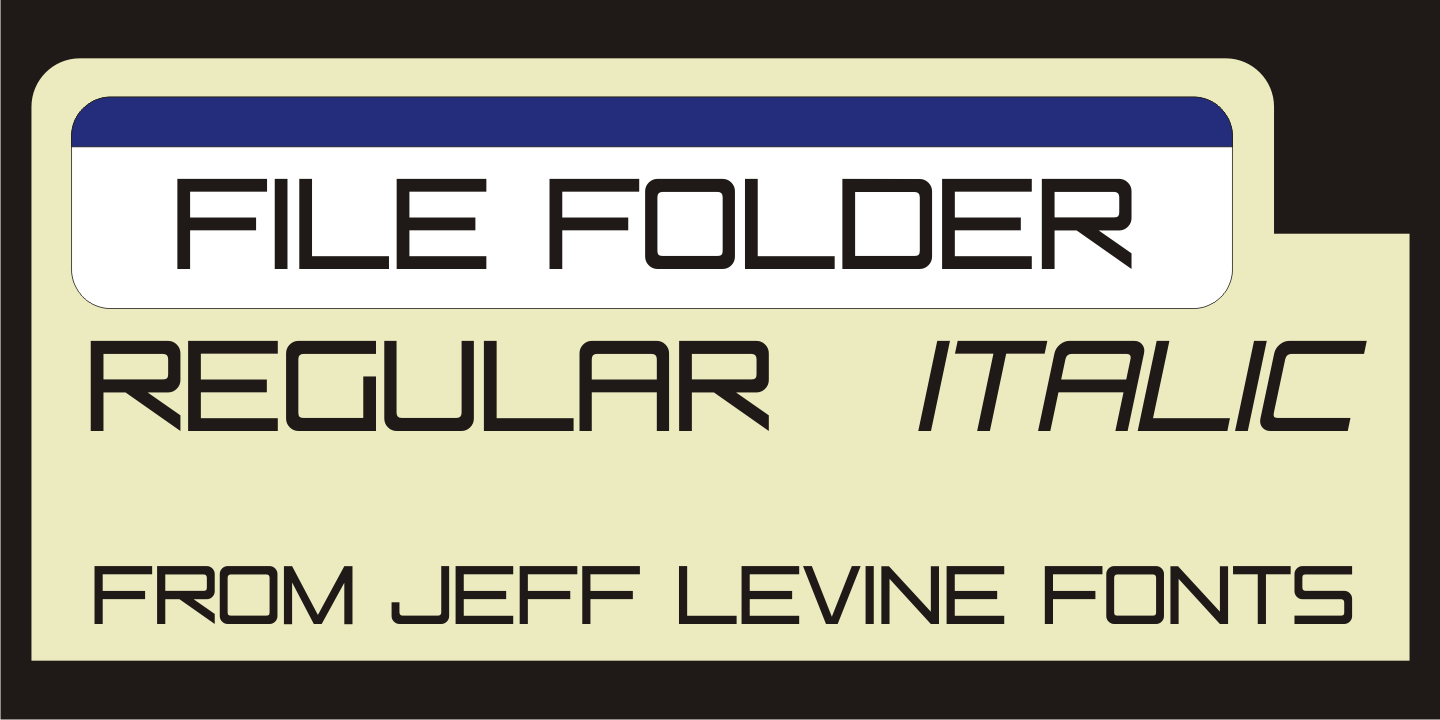
File Folder JNL Font is an exceptionally unique and highly functional typeface, designed to perfectly capture the utilitarian charm and nostalgic appeal of classic office stationery and mid-century archival aesthetics. This versatile font is an ideal choice for projects aiming to evoke a sense of organization, vintage bureaucracy, or simply a clean, no-nonsense approach. Imagine File Folder JNL Font enhancing the visual identity of a historical society's website, adding authenticity to vintage-themed document mockups, or bringing a distinctive retro touch to modern branding for consulting firms or legal offices. Its clear and straightforward design also makes it excellent for informational graphics, museum exhibits, or any design where a crisp, legible, and subtly period-specific feel is desired.
What makes File Folder JNL Font truly exciting is its ability to instantly convey a sense of order, reliability, and timeless efficiency. It’s a font that stands out due to its deliberate simplicity and straightforwardness, mimicking the practical lettering found on official documents and actual file folders from a bygone era. Designers often search for typefaces that can offer such a specific, niche aesthetic while remaining incredibly versatile, and File Folder JNL Font perfectly achieves this, providing a fresh yet familiar option for a wide array of creative and professional applications.
The File Folder JNL Font family typically includes a range of weights and styles, such as Regular, and potentially a bold or condensed version, offering crucial flexibility for various design requirements. These variations are essential for designers to establish clear visual hierarchies and maintain a consistent stylistic thread across different elements of a project. Whether you need a precise headline for an archival-themed project or legible body text for a vintage-inspired business card, the comprehensive choices within the File Folder JNL Font family provide ample creative freedom. For designs that demand a blend of vintage charm and clear legibility, remember to check out File Folder JNL Font Free Download.